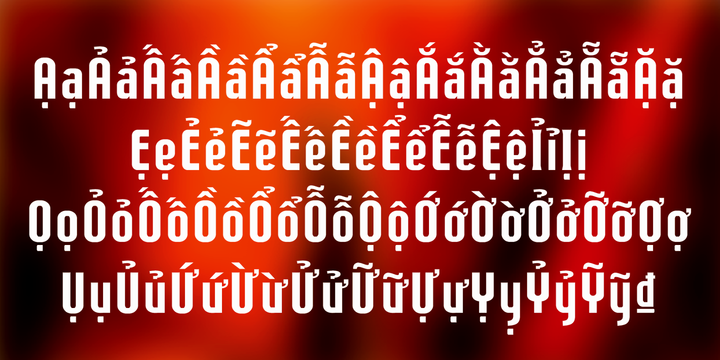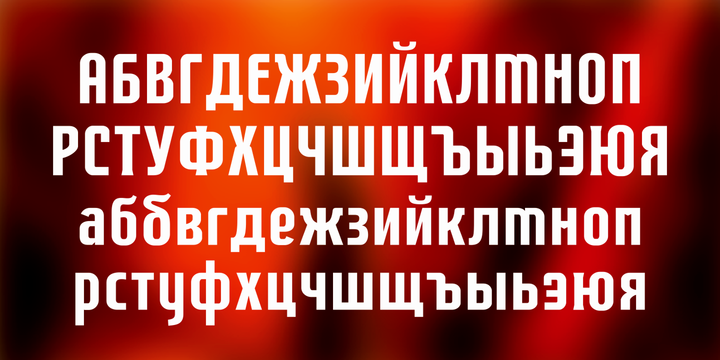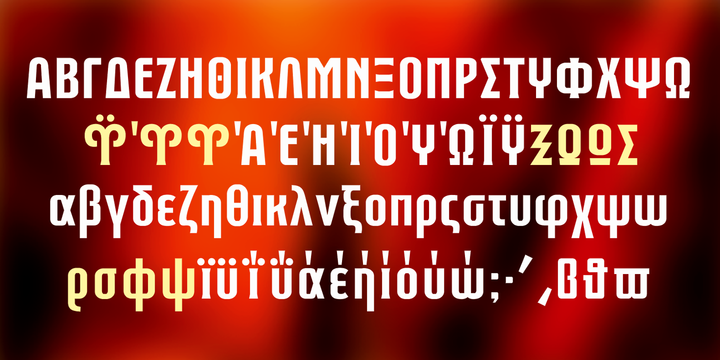
Anyone can base their font strategy on comic book letterers of old. In fact, the most commonly aped styles tend to be those from the 60s and early 70s.
But what about comic book letterers of new? The 80s and a bit beyond? Well, I jumped forward some, give or take a decade, landing moments ahead of the computer-lettering revolution, and with no strategy in mind except maybe to do myself in on the time expenditure, Strategycide was born.
More Its got the narrow stance, the gothic style, some hidden sharpies, and it is absolutely in love with thick outlines and deep drop shadows.
Its a strong face with a clear strategy. Not one likely to hurt you or finish you off, though. That would be Strategycide. Available in two industry-satisfying versions: CAS (Computer-Aided Signmaking) and DTP (Desktop Publishing).